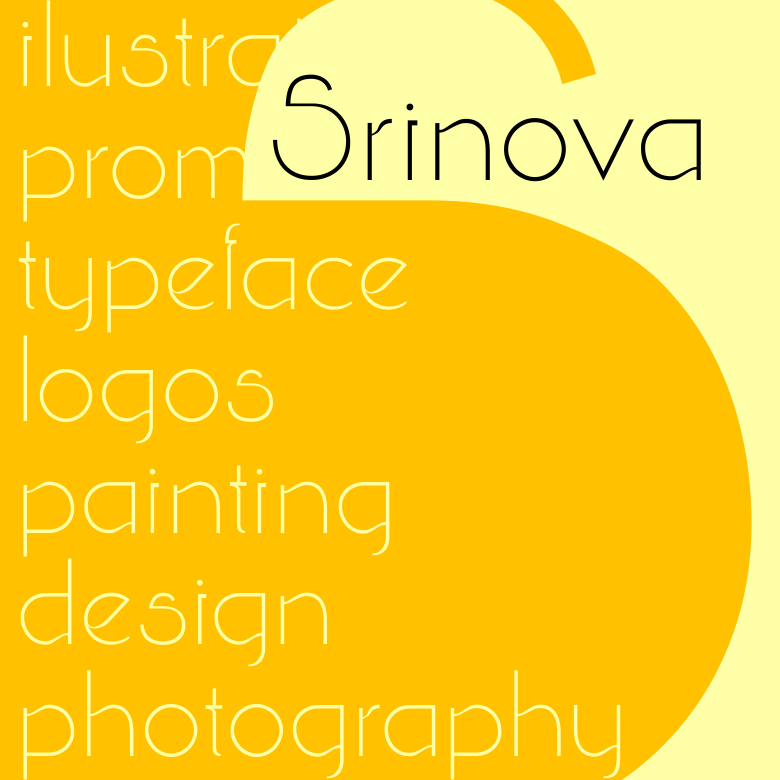
Fontface has a thin thickness, curvature contained in a line showed differences with other fontface, characterizes the identity of fontface Srinova. The lines are quite feminine, but can be used also for the masculine style. |